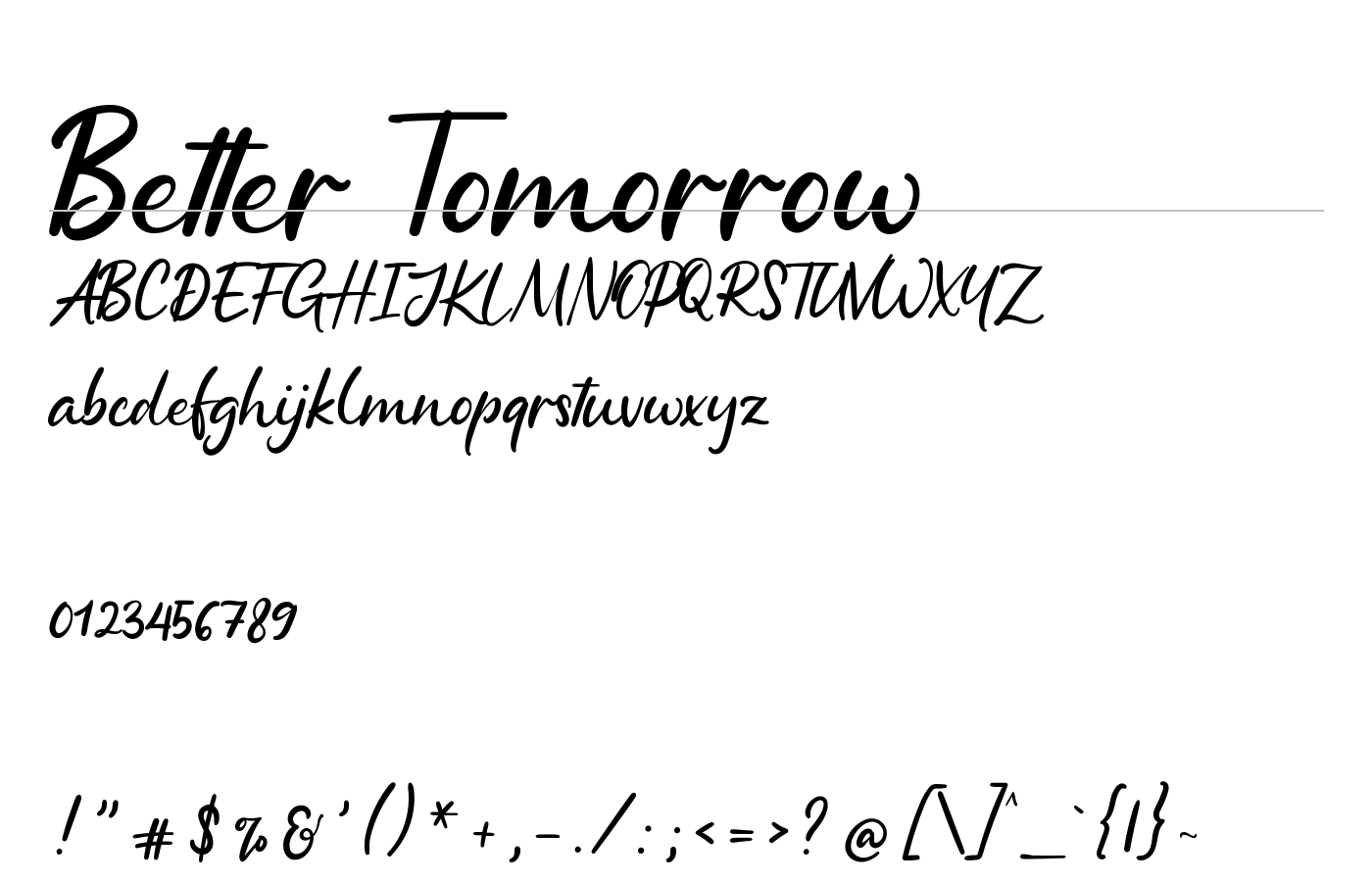
Better Tomorrow is a playful and elegant script font with a casual, handwritten feel. Its smooth, flowing strokes and slightly condensed letterforms make it ideal for projects seeking a personal and approachable touch, such as invitations, branding, and creative headlines. This font works well in designs that want to convey warmth and friendliness while maintaining a stylish, modern look.
Better Tomorrow Font
About Better Tomorrow Font
| Font family | Better Tomorrow Font |